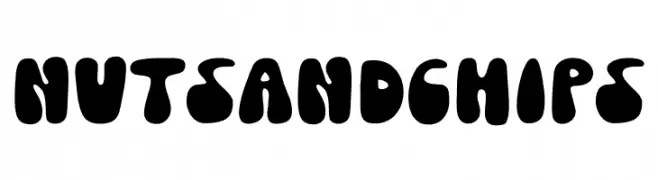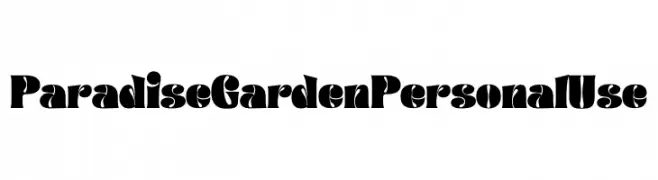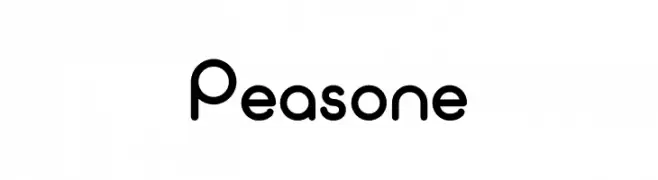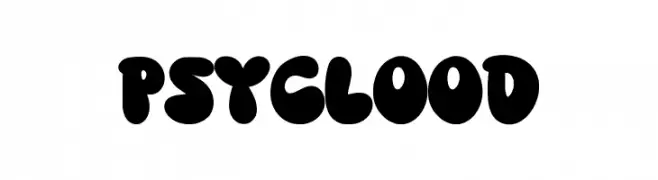
( Fonts by Ferry Ardana Putra )
A bold, geometric font with sharp angles and strong visual impact.
( Fonts by Hoperative )
A bold, retro-inspired font with rounded, playful letterforms.
( Fonts by PutraCetol Studio )
A bold, geometric font with stylized, energetic characters.
( Fonts by Jimtype Studio )
A bold, playful typeface with rounded, bubbly characters.
( Fonts by Din Studio )
A bold, decorative font with high contrast and artistic flair.
( Fonts by Moonotonous )
A modern, rounded sans-serif font with smooth curves and a friendly appearance.
( Fonts by Elbanadha Creative )
A playful, bold font with bubbly, rounded characters and a whimsical style.
( Fonts by Tri Sakti Oktaviano )
A playful, bold, and rounded decorative font with a whimsical style.
( Fonts by Arterfak Project )
A decorative font with multiple parallel lines creating a modern, geometric look.